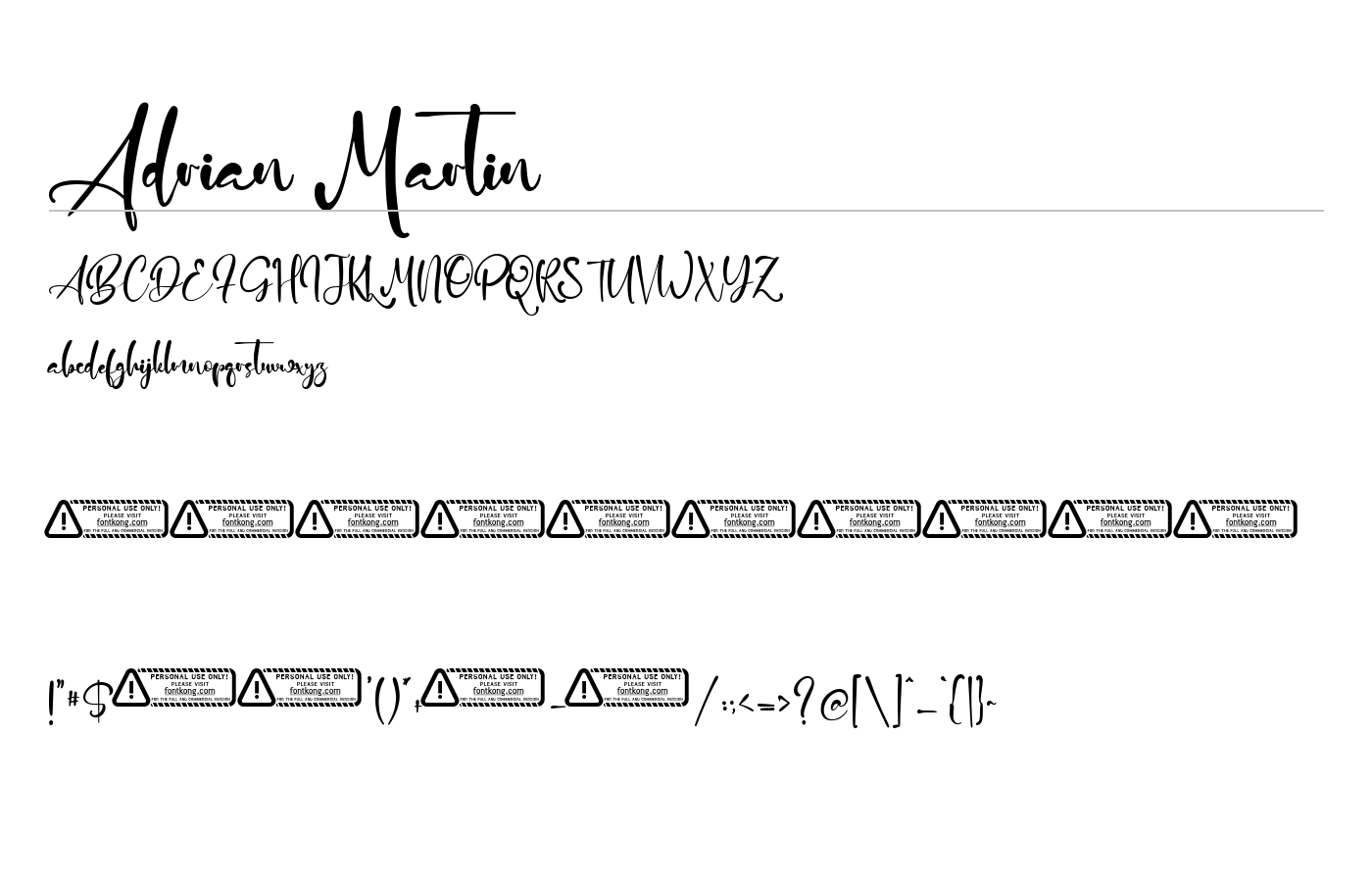
Adrian Martin is an elegant script font with a modern, handwritten feel, characterized by flowing, thin strokes and a slightly condensed width. Its high contrast and smooth, calligraphic curves make it perfect for stylish branding, wedding invitations, and any design that seeks a sophisticated yet personal touch. This font shines in display use, adding charm and refinement to logos and headline text.
Adrian Martin Font
About Adrian Martin Font